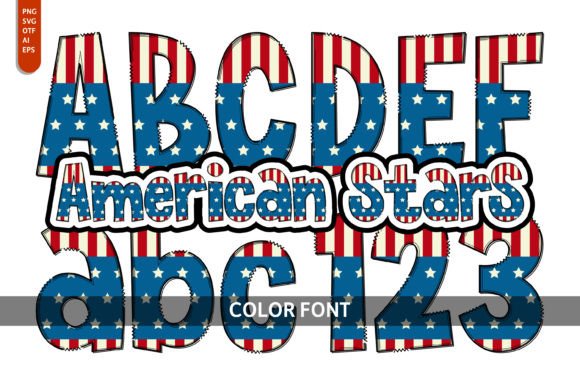
Embark on a typographic adventure with American Stars Font, a kaleidoscope of colors that will ignite your creativity and transform your designs into captivating masterpieces. Dive into a boundless ocean of artistic expression, where whimsical characters dance across the screen, leaving a trail of enchantment in their wake.
Picture this: a children's book adorned with American Stars Font, its pages bursting with vibrant hues and playful shapes. Each letter is a stroke of genius, a testament to the boundless imagination that lies within the heart of every child. The font's playful curves and vibrant colors breathe life into every tale, inviting young readers to embark on extraordinary journeys filled with magic and wonder.
Or perhaps you envision a poster promoting an art exhibition, its title emblazoned in American Stars Font. The letters leap off the page, demanding attention with their bold presence and captivating charm. The font's inherent artistry draws the eye like a magnet, promising an immersive experience that will ignite the senses and leave a lasting impression.
The possibilities are as limitless as the stars themselves. Use American Stars Font to craft eye-catching invitations that hint at the joyous celebration to come. Adorn greeting cards with its vibrant characters, spreading warmth and cheer with every message. Let your imagination soar as you explore the endless applications of this extraordinary font.
Step into the world of American Stars Font and unlock a treasure trove of design possibilities. Let your imagination run wild as you create masterpieces that captivate and inspire. Embrace the vibrant colors, whimsical shapes, and playful spirit that define this extraordinary font. The journey begins here, where artistry meets innovation, and dreams take flight.